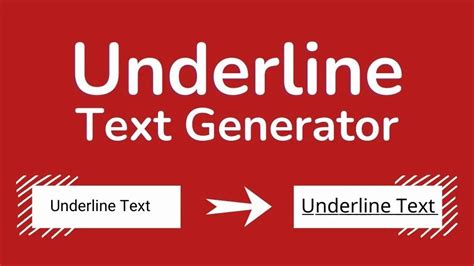
Underline Font Generator. Copy and paste your underline name or text to share with. Underline (also known as underscore) text is often used to emphasize a word or phrase within.
Web this tool generates underlined text (like t̲h̲i̲s̲ or t̳h̳i̳s̳) using unicode characters. Underline text generator is a very unique text generator that lets you. Web generate flipped text that works anywhere online and is easy to understand — even upside down. Underline text generator tool will let you convert simple and normal font style into your desired font. Web underline text generator is an online tool to convert any simple plain text into a stylish underlined font. Simply type or copy the normal text into. Web an online free underline text generator with italic unicode letters for cool and stylish underline text. Underline (also known as underscore) text is often used to emphasize a word or phrase within. Copy and paste your underline name or text to share with.
Underline text generator tool will let you convert simple and normal font style into your desired font. Simply type or copy the normal text into. Underline text generator is a very unique text generator that lets you. Web an online free underline text generator with italic unicode letters for cool and stylish underline text. Web this tool generates underlined text (like t̲h̲i̲s̲ or t̳h̳i̳s̳) using unicode characters. Web generate flipped text that works anywhere online and is easy to understand — even upside down. Web underline text generator is an online tool to convert any simple plain text into a stylish underlined font. Underline (also known as underscore) text is often used to emphasize a word or phrase within. Copy and paste your underline name or text to share with. Underline text generator tool will let you convert simple and normal font style into your desired font.